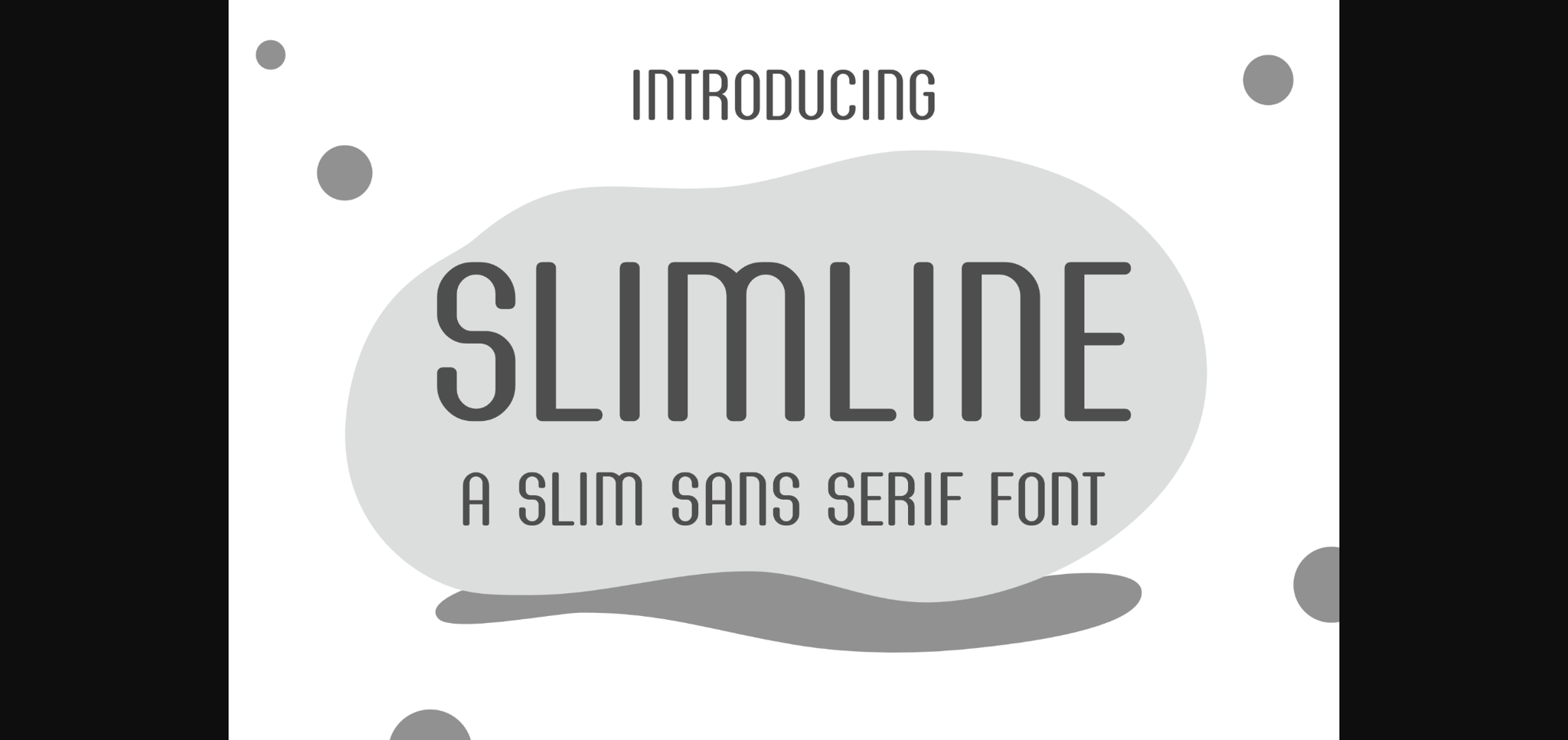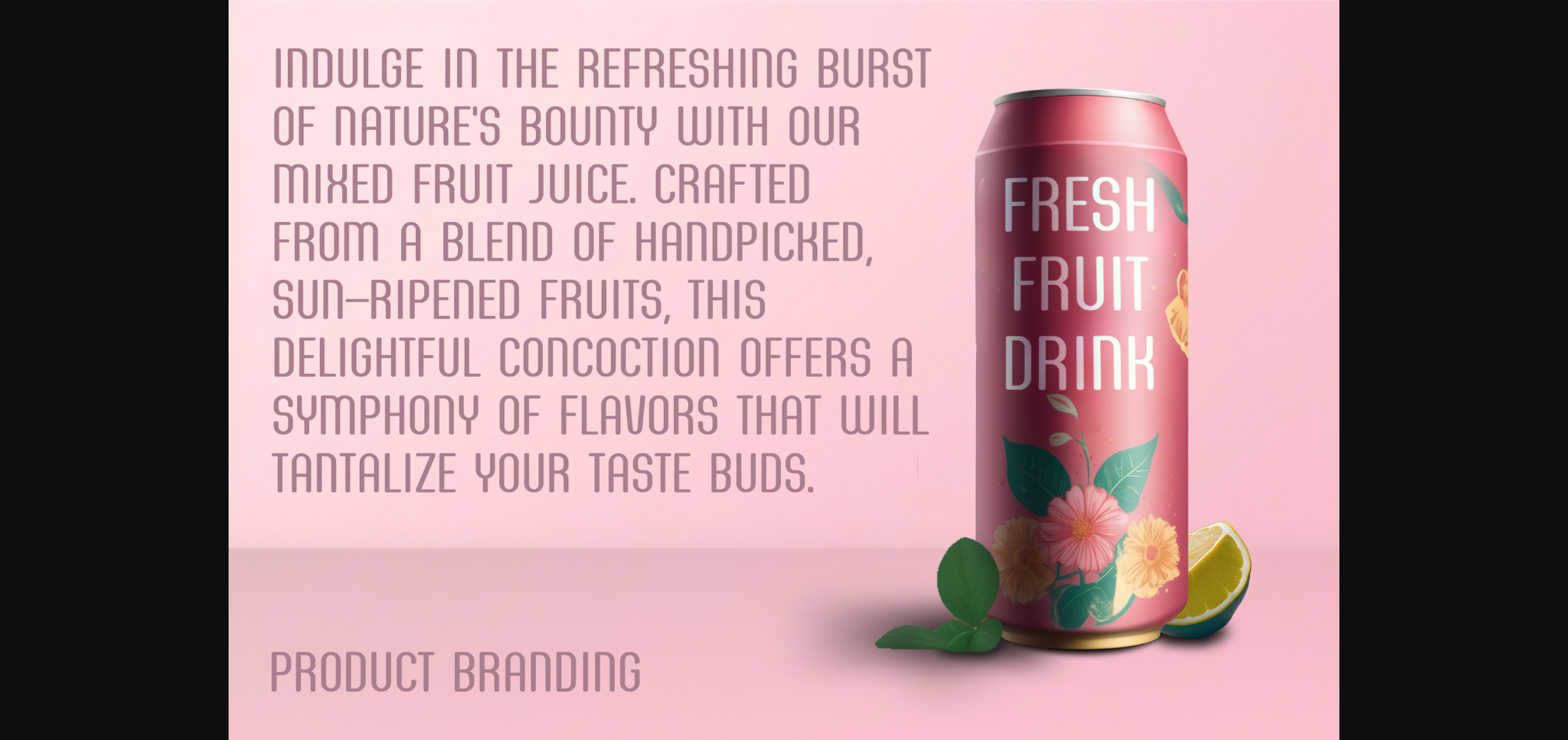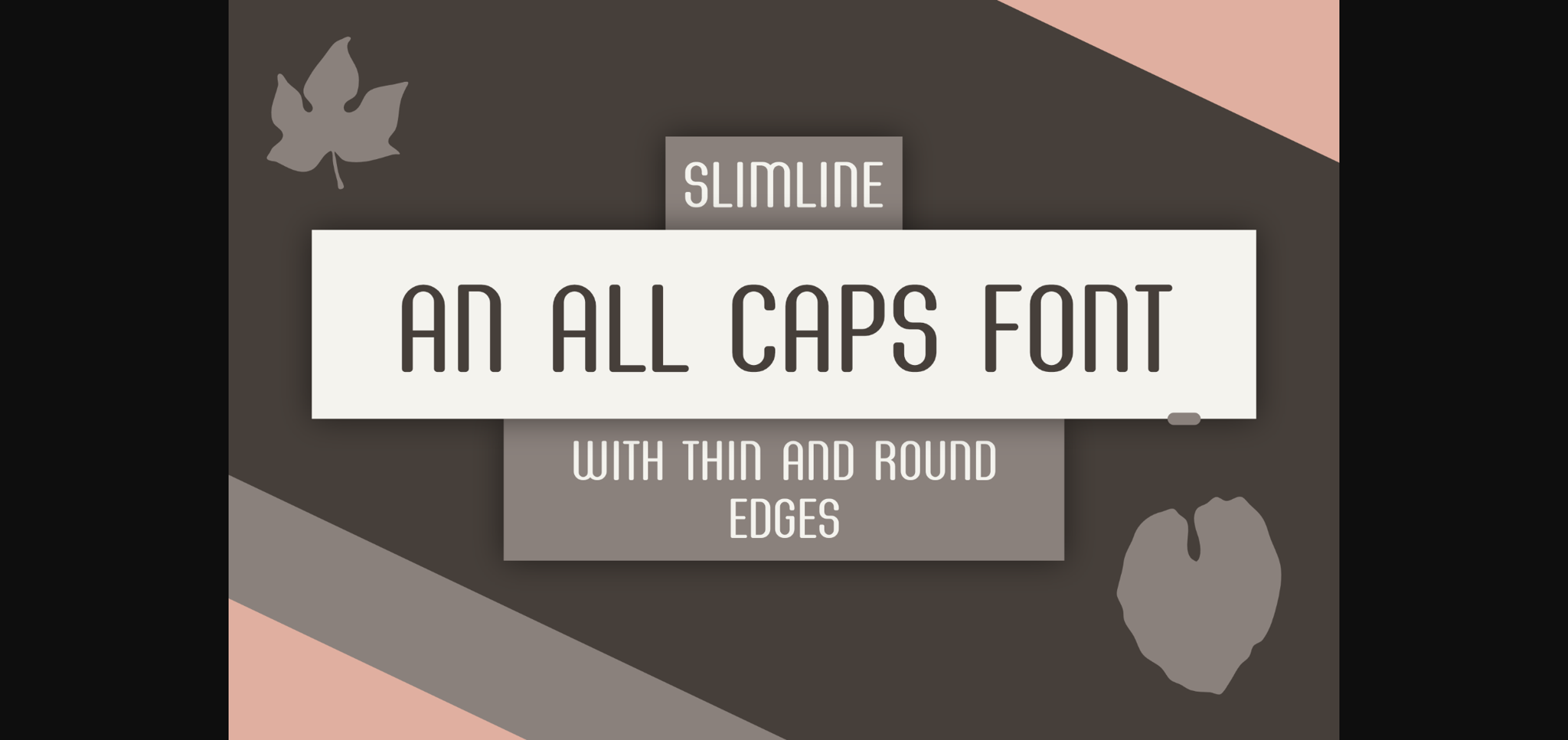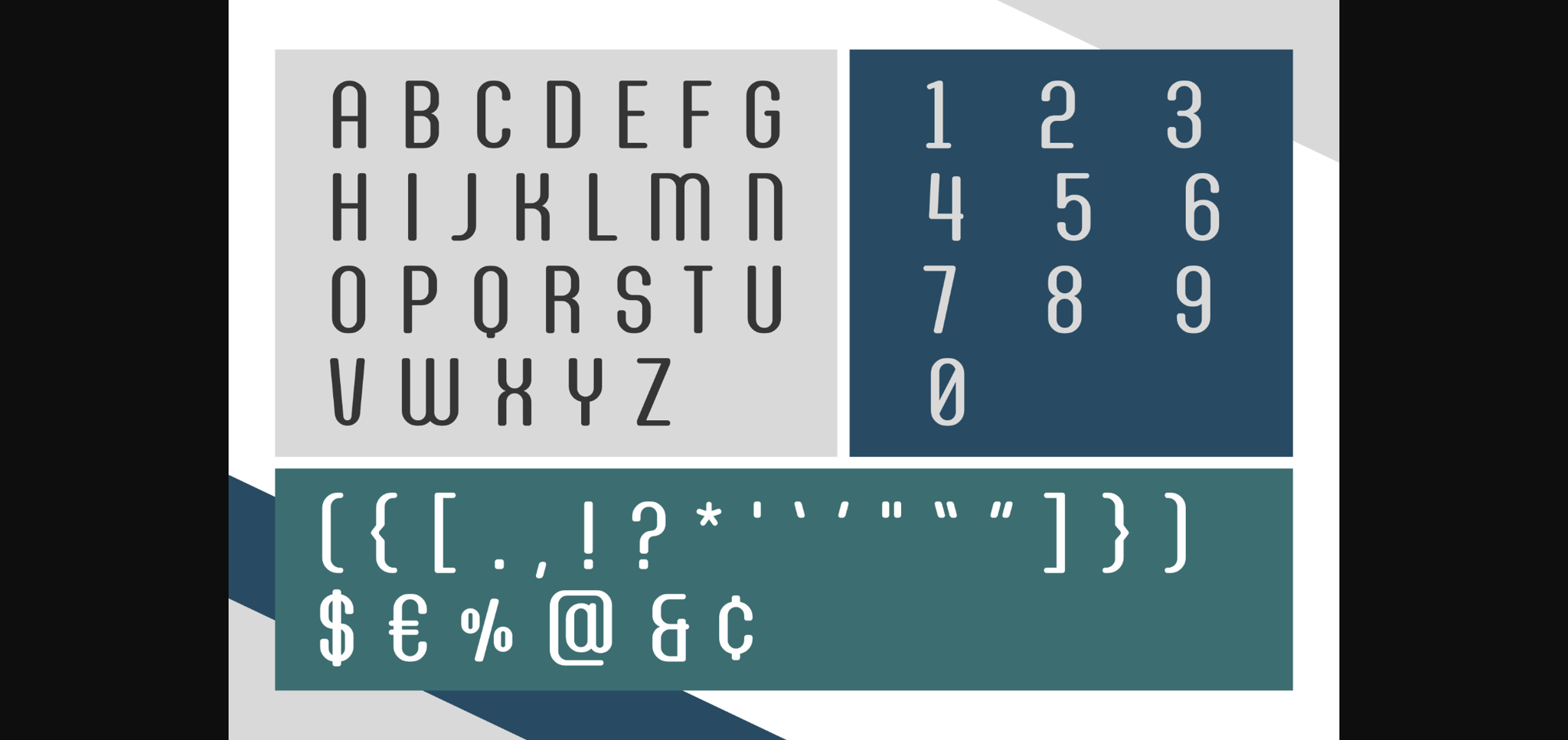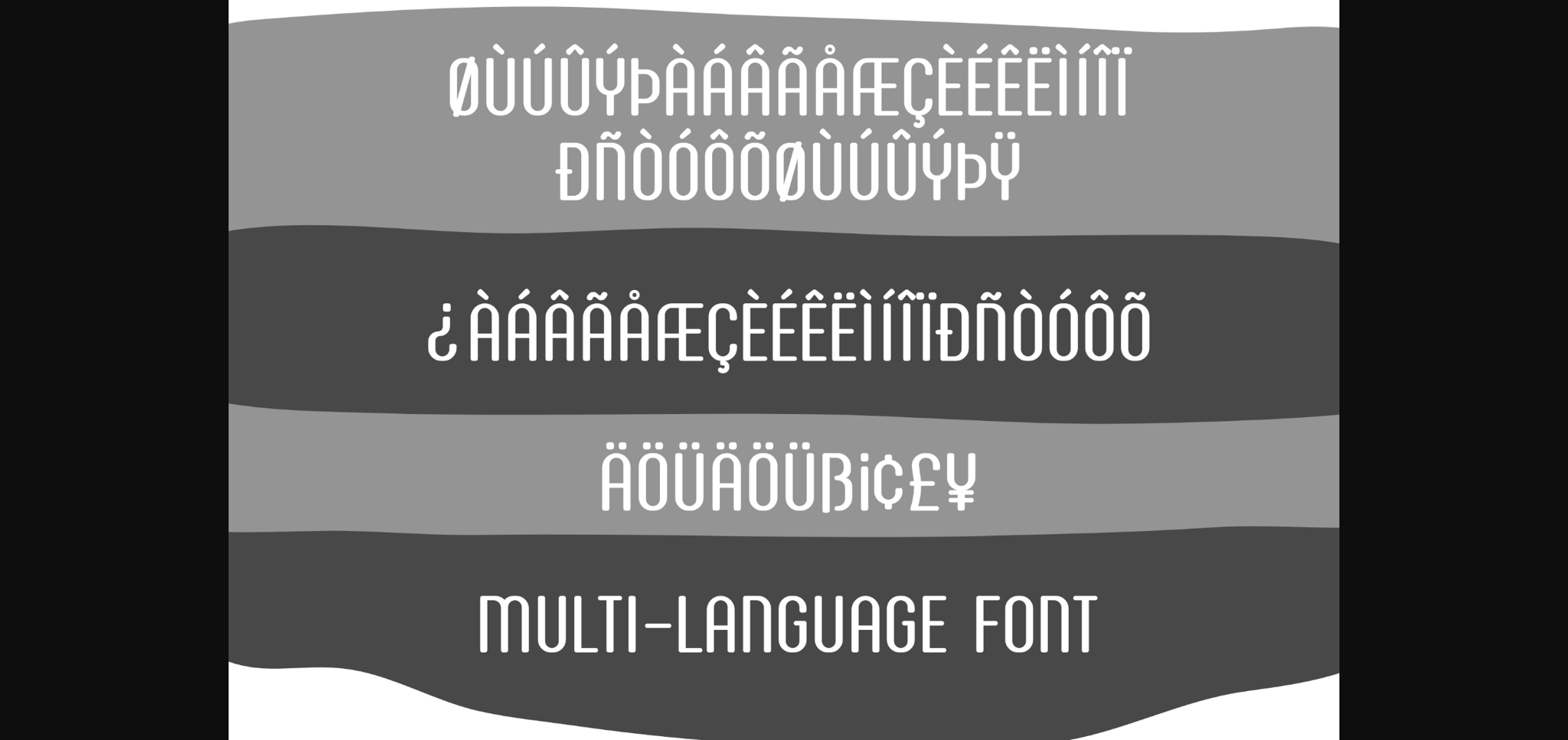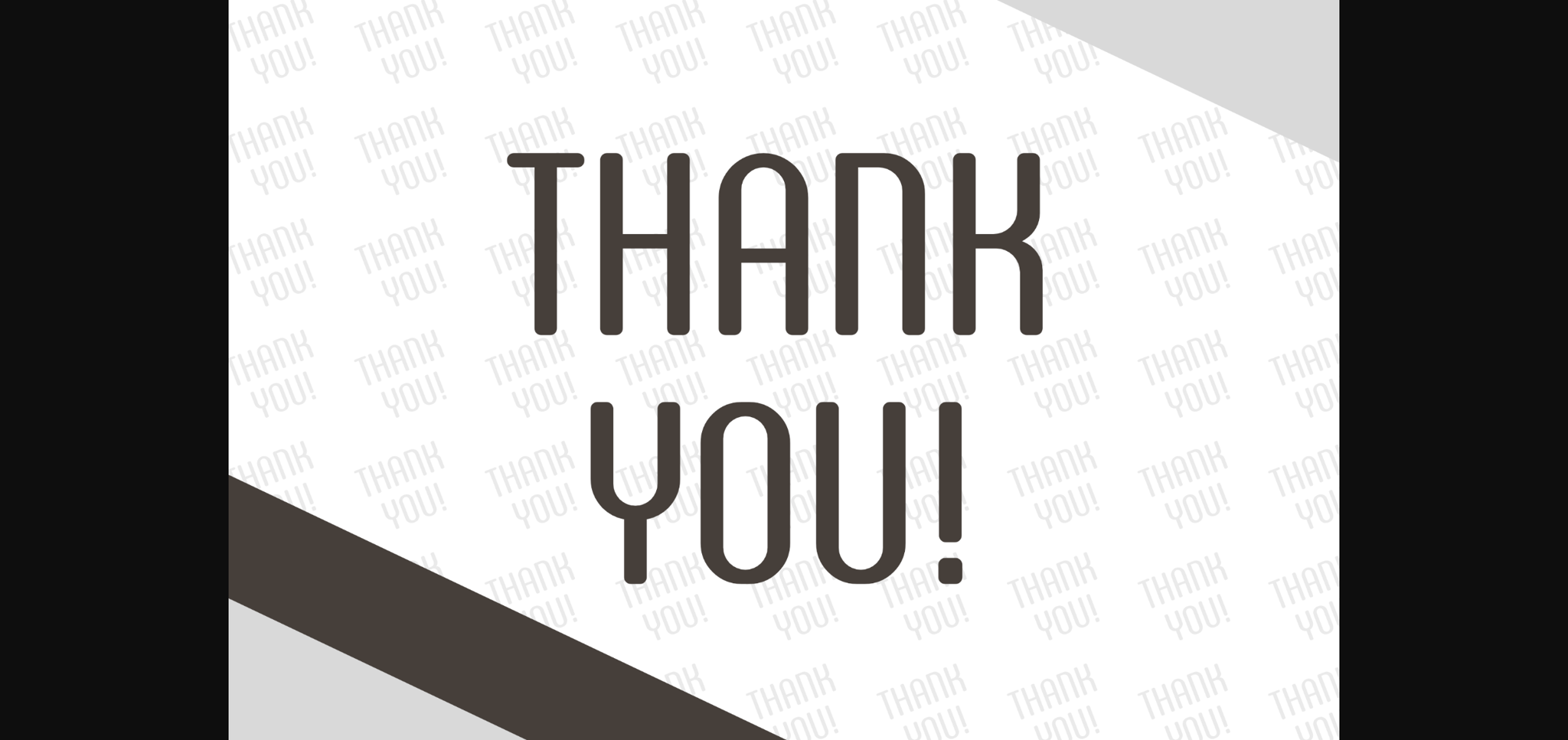
Slimline Font
About Slimline Font
Elegance meets simplicity with SlimLine, an all-caps font. This sleek and slender typeface is designed to make a statement with its refined, minimalist aesthetic. Its thin, delicate lines add a touch of sophistication to any project, from wedding invitations to high-end branding.